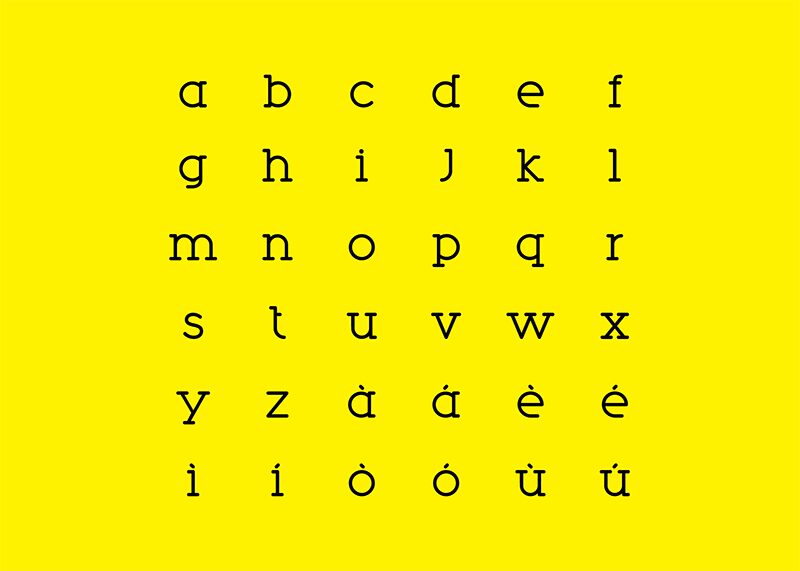
Phobo, a striking typeface designed by Marco Invernizzi, exudes an unwavering sense of authority and sophistication. Its angular, geometric letterforms command attention, with clean lines and a distinctive, bold presence that lend an air of confidence and modernity to any design. Phobo's unique character is particularly well-suited for use in branding, editorial layouts, and display applications, where its strong visual impact can effectively convey a sense of authority and professionalism.
This font's versatility and striking aesthetic make it a valuable addition to any designer's toolkit, offering a compelling alternative to more traditional serif and sans-serif options.